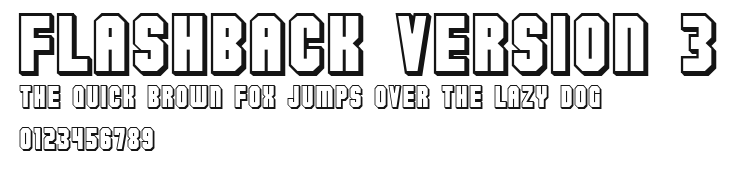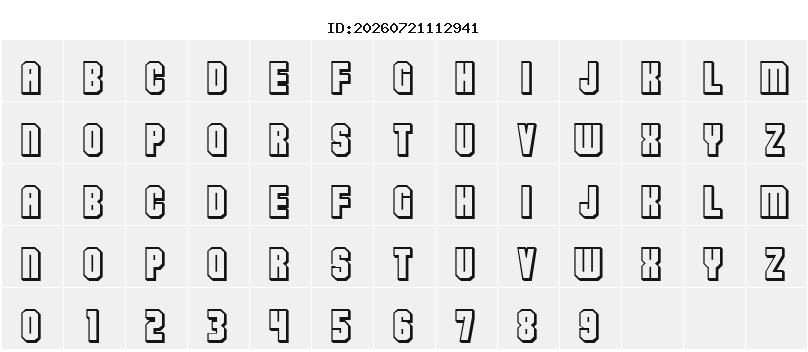
Flashback version 3 Preview
• Font Name: Flashback version 3
• Full Font Name: Flashback version 3
• PostScript Name: Flashbackversion3
About Flashback version 3.ttf
Flashback version 3.ttf is a modern, elegant sans-serif font designed for ultimate readability and visual harmony. Perfect for branding, headlines, web design, and print materials.